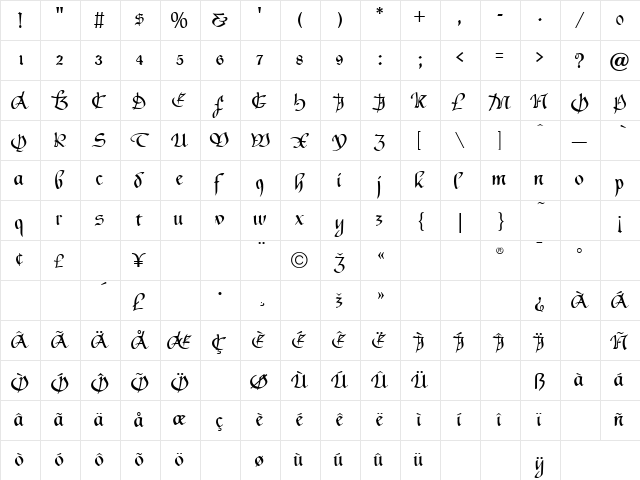
Horloge Regular Font Preview
Horloge Regular
Horloge Regular Font Details
Design Context for Horloge Typeface
Horloge is a composed and adaptable typeface that performs quietly and consistently across a wide range of design contexts.